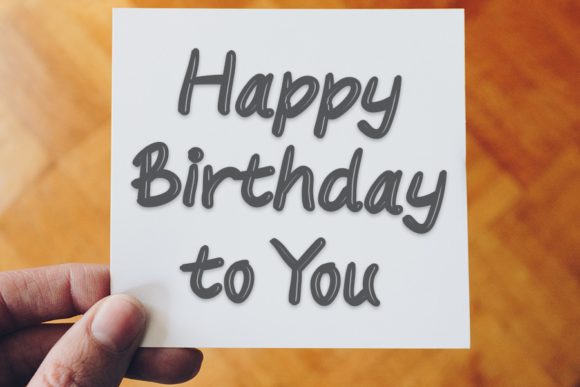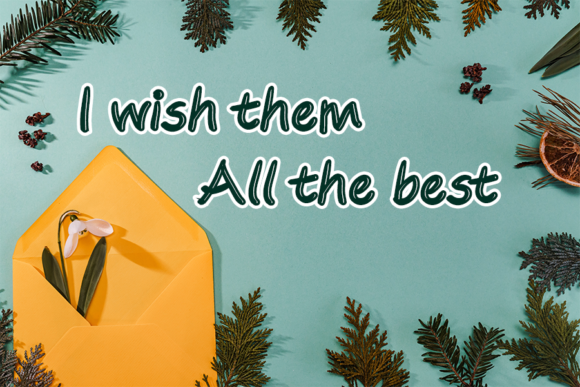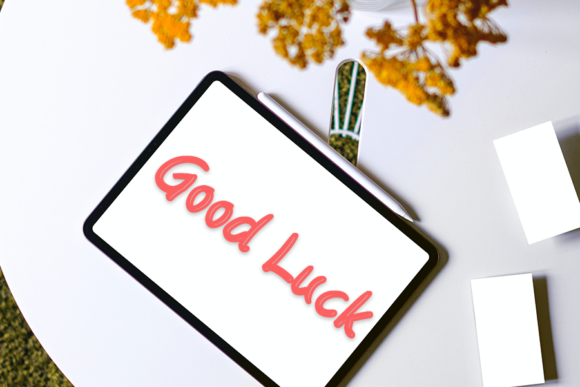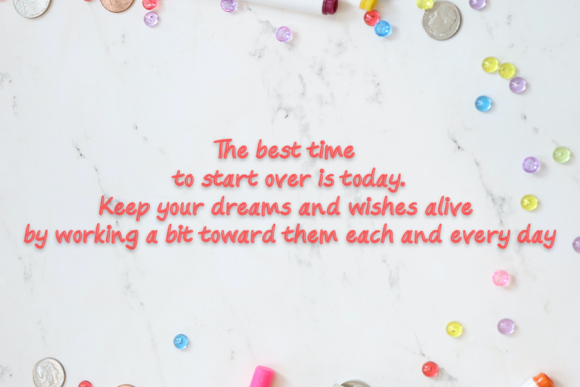
Introducing Happy Wish Font: The Perfect Handwritten Font for Joyful Creations
Are you tired of using the same old fonts for your creative projects? Do you want to add a touch of personality and whimsy to your designs? Look no further than Happy Wish Font, a beautiful handwritten font that is sure to bring a smile to your face. In this article, we’ll take a closer look at Happy Wish Font, its features, and how you can use it to elevate your designs.
What is Happy Wish Font?
Happy Wish Font is a neat handwritten font that boasts a trendy look, making it perfect for writing joyful and fun letters. This font is designed to add a personal touch to your creations, whether you’re a designer, crafter, or simply someone who loves to express themselves through art. With Happy Wish Font, you can add a dash of personality to your projects and make them stand out from the crowd.
Key Features of Happy Wish Font
So, what makes Happy Wish Font so special? Here are just a few of its key features:
- Handwritten look: Happy Wish Font has a beautiful, handwritten look that is sure to add a personal touch to your designs.
- Trendy design: This font boasts a trendy design that is perfect for creating modern and stylish projects.
- Joyful and fun: Happy Wish Font is designed to bring a smile to your face, making it perfect for creating joyful and fun letters.
- Easy to read: Despite its handwritten look, Happy Wish Font is easy to read, making it perfect for use in a variety of projects.
How to Use Happy Wish Font
So, how can you use Happy Wish Font in your designs? Here are just a few ideas to get you started:
- Stationery and cards: Happy Wish Font is perfect for creating personalized stationery and cards for special occasions.
- Social media graphics: Add a touch of personality to your social media graphics with Happy Wish Font.
- Blog posts and articles: Use Happy Wish Font to add a personal touch to your blog posts and articles.
- Crafting projects: Happy Wish Font is perfect for use in a variety of crafting projects, such as scrapbooking and journaling.
Benefits of Using Happy Wish Font
So, why should you choose Happy Wish Font for your designs? Here are just a few benefits of using this font:
- Adds personality: Happy Wish Font adds a personal touch to your designs, making them more engaging and relatable.
- Versatile: Happy Wish Font can be used in a variety of projects, from stationery and cards to social media graphics and blog posts.
In conclusion, Happy Wish Font is a beautiful handwritten font that is sure to bring a touch of personality and whimsy to your designs. With its trendy look and joyful feel, this font is perfect for creating fun and engaging projects. Whether you’re a designer, crafter, or simply someone who loves to express themselves through art, Happy Wish Font is a great choice. So why not give it a try and see how it can brighten up your creations?